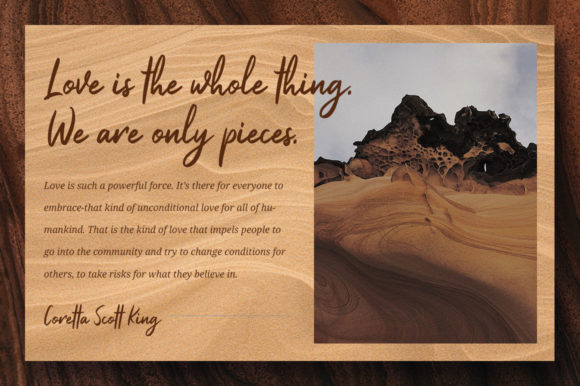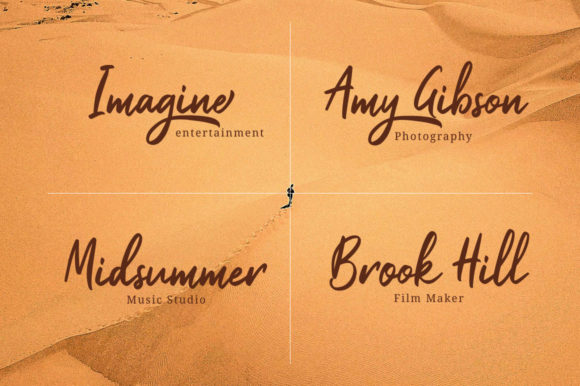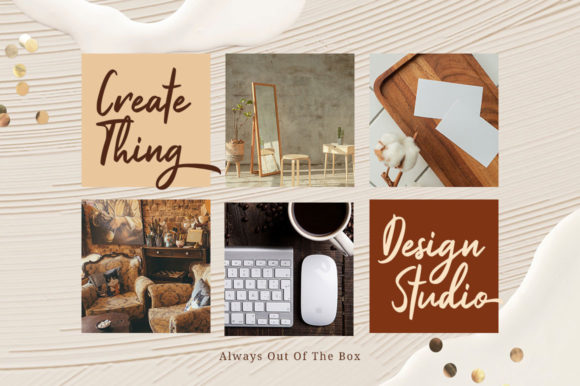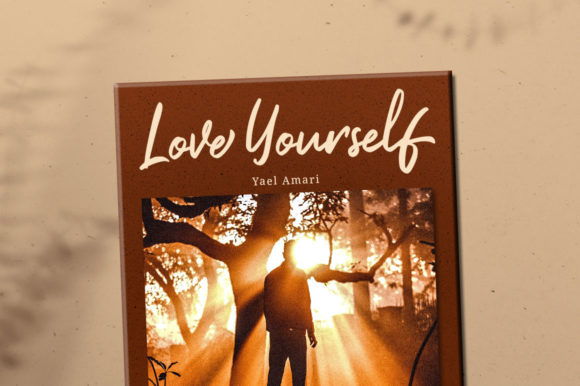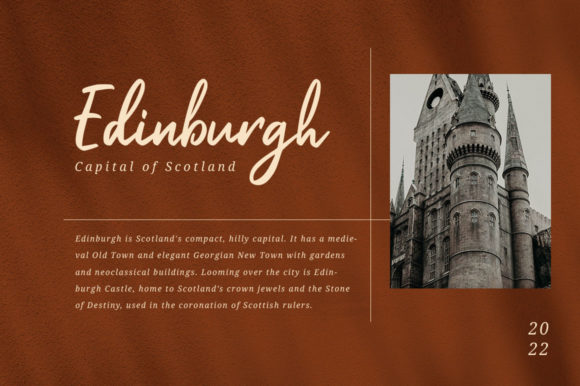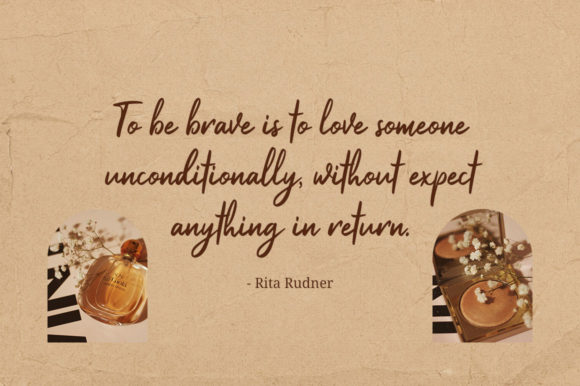
Get Ready to Groove with the Ballydance Font
Have you ever found yourself lost in a sea of blank pages, searching for the perfect font to bring your creative vision to life? I know I have. It’s that moment when the words start flowing, and you’re eager to translate your ideas into beautiful, tangible art. That’s exactly what happened when I stumbled upon the enchanting Ballydance Font.
This cursive, paint-brushed script font is more than just a pretty face – it’s a tool designed to add a touch of whimsy and elegance to your designs. With its PUA-encoded characters, you’ll have access to a world of swashes and glyphs that will make your typography dance along the baseline. Whether you’re a seasoned designer or just starting out, the Ballydance Font is sure to become your new best friend.
Ballydance Font Key Features
- Font Family: Ballydance, with multiple font styles (Regular, Italic, Bold, Bold Italic) and weights (Light, Medium, SemiBold, ExtraBold)
- Unique Characteristics: Ballydance features a unique blend of modern and vintage elements, with ornate flourishes and decorative details, making it suitable for a wide range of design applications, from titles and headings to body text and logos
Ballydance Font Review
I recently had the chance to work with the Ballydance font, and I must say it’s an interesting choice. ✨ The first thing that caught my attention was its playful, whimsical feel. It’s perfect for projects that need a touch of nostalgia or a carefree vibe.
Some of the things that work well with Ballydance include:
- Its unique, hand-drawn look that adds character to any design
- The wide range of weights and styles, making it versatile for different applications
- Its legibility, which is surprisingly clear despite its playful feel
However, I do have some reservations:
- ⚠️ It may not be the best choice for professional or formal projects, as it can come across as too casual or immature
- ⚠️ The font can be quite busy, with a lot of flourishes and ornaments that may distract from the content
- ⚠️ It may not be easily readable at smaller font sizes, which can limit its use in certain applications
Overall, Ballydance is a fun and creative font that’s perfect for projects that need a playful touch. While it may not be suitable for all applications, it’s definitely worth considering for projects that require a lighthearted or nostalgic feel.
For best results, use Ballydance Font for headings or titles to add a touch of elegance and sophistication to your designs.
Use Ballydance Font to add a unique touch to your graphics, logos, or other visual elements.
Use Ballydance Font to add a touch of whimsy and playfulness to your presentations or documents.
Ballydance Font is perfect for:
- Party and event decorations
- Children’s books and educational materials
- Graphic design projects requiring a playful and whimsical touch
Remember to use Ballydance Font sparingly and thoughtfully to